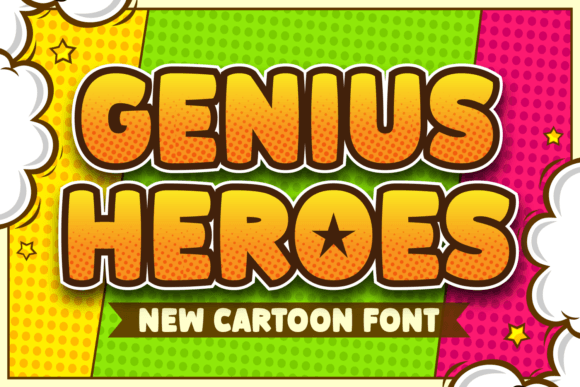
Genius Heroes: A Display Font That Delivers Personality at a Glance
It was 3 p.m. on a Tuesday—two days before the launch of our client’s new online course series—and I was tweaking the final YouTube thumbnail set. The headline needed to pop in under two seconds: bold, friendly, unmistakably human. I cycled through three fonts. One felt too stiff. Another got lost on mobile. Then I dropped in Genius Heroes. Instantly, the thumbnail felt like it had leaned in and smiled. Not “cute.” Not “quirky for the sake of it.” Just warm, confident, and instantly legible—even at 280 pixels wide.
A Cartoon-Inspired Display Font with Real Campaign Muscle
Genius Heroes is a thick, chubby display font built for visibility—not decoration. Its cartoon roots aren’t childish; they’re expressive. Rounded terminals, generous x-height, and slightly exaggerated proportions give it strong presence without sacrificing clarity. It reads as approachable, energetic, and grounded—ideal for brands that want personality without pretense.
In practice, it thrives where attention is scarce and tone matters most: Instagram story banners, Pinterest pin titles, email subject line previews, and Reels cover text. Because it’s designed as a display font, it doesn’t try to carry body copy. It anchors messages. It signals intent. It makes “New Launch!” feel like an invitation—not an announcement.
Where Genius Heroes Earns Its Place in Your Workflow
We used Genius Heroes across six assets in a recent digital ad set for a seasonal workshop series—and not just as a headline filler. Here’s how it performed:
- YouTube thumbnails: Paired with high-contrast background colors (deep teal + warm coral), it stayed crisp even when compressed. No blurring, no glyph collapse. The chunky letterforms held up at thumbnail scale better than thinner display fonts we’ve tested.
- Instagram carousels: Used for slide titles (“What You’ll Build,” “Tools You’ll Use”), it created consistent visual rhythm across 5 frames—without competing with photography or illustrations.
- Pinterest pins: On vertical layouts with light overlays, its weight ensured readability against textured backgrounds. We avoided pure white text on light images, but even with subtle drop shadows, Genius Heroes maintained hierarchy.
- Email banner headers: At 48px on desktop and 36px on mobile, it loaded cleanly across clients (including Outlook) and retained character in both dark-mode and light-mode previews.
- Digital ads (Meta & Google Display): Rendered reliably across browsers and devices. Its clean vector outlines meant no pixelation on retina screens—a small but critical win for paid media.
It’s not a one-size-fits-all solution—but it *is* a reliable tone-setter for short-form, high-impact moments.
Readability Realities: When and Where It Shines (and When to Step Back)
Let’s be practical: Genius Heroes excels in display roles—not extended reading. We tested it at 16px on mobile for a landing page subhead. It worked. At 14px? Too dense. At 12px? Unreadable in fast-scrolling feeds. Stick to headlines, callouts, labels, and decorative titles—ideally 24px and up for web, 32px+ for social thumbnails.
It performs best on light or mid-tone backgrounds. On true black, we added a subtle inner shadow (1px, soft, 20% opacity) to lift letters off the background—no halo, no blur. On very light grays or off-whites, it held its own without adjustment.
It’s also not built for formal corporate decks, legal disclaimers, or data-heavy infographics. If your message needs neutrality or gravitas, reach for a trusted sans serif instead. Genius Heroes communicates joy, energy, and accessibility—not authority or austerity.
Smart Pairing and Practical Licensing Notes
We paired Genius Heroes with Inter (a neutral, highly legible sans serif) for all body copy and captions. The contrast worked beautifully: playful headline + grounded supporting text. It also holds up well with gentle serifs (like IBM Plex Serif) for editorial-style quote graphics—or even minimalist handwritten fonts (think Quicksand or Playfair Display) for layered typographic moments.
Before deploying in client work, we checked the font package: it includes standard OTF/TTF files, basic OpenType features (ligatures and stylistic alternates), and full Latin character support—including accented characters for Spanish, French, and German. No extended Cyrillic or Arabic coverage, so we flagged that early for multilingual campaigns. Licensing is commercial-friendly for digital use, templates, and client deliverables—but always verify usage rights if you’re bundling it into a digital product or merch design.
One last note: while it’s a premium font, its value isn’t in exclusivity—it’s in consistency. Once you lock in Genius Heroes as your go-to display voice for a campaign, it becomes part of the visual shorthand your audience starts recognizing—not because it’s flashy, but because it’s dependable, distinct, and quietly confident.